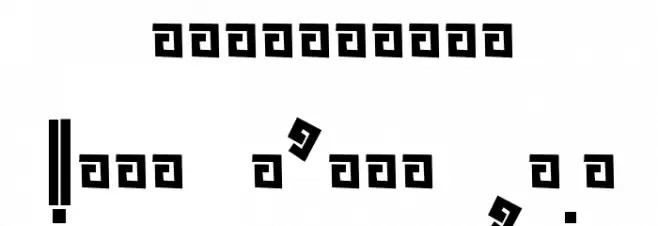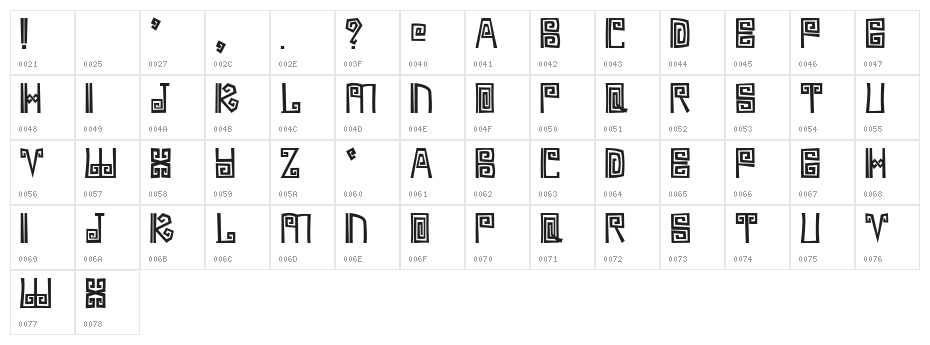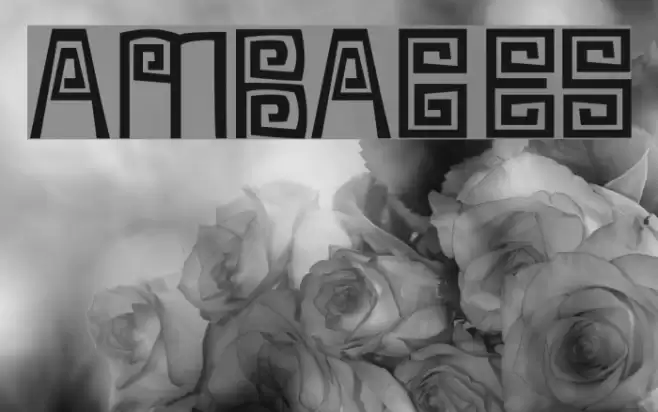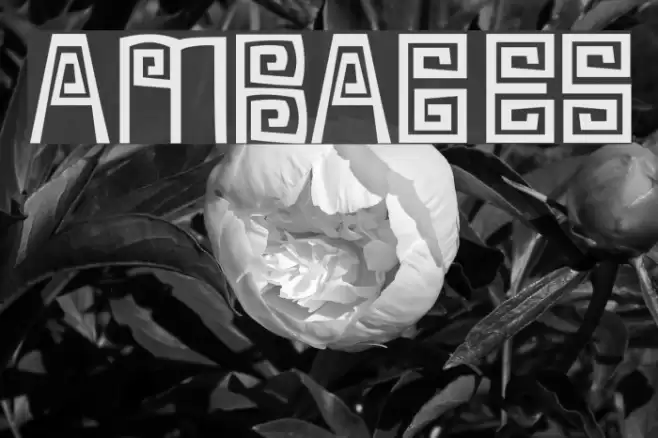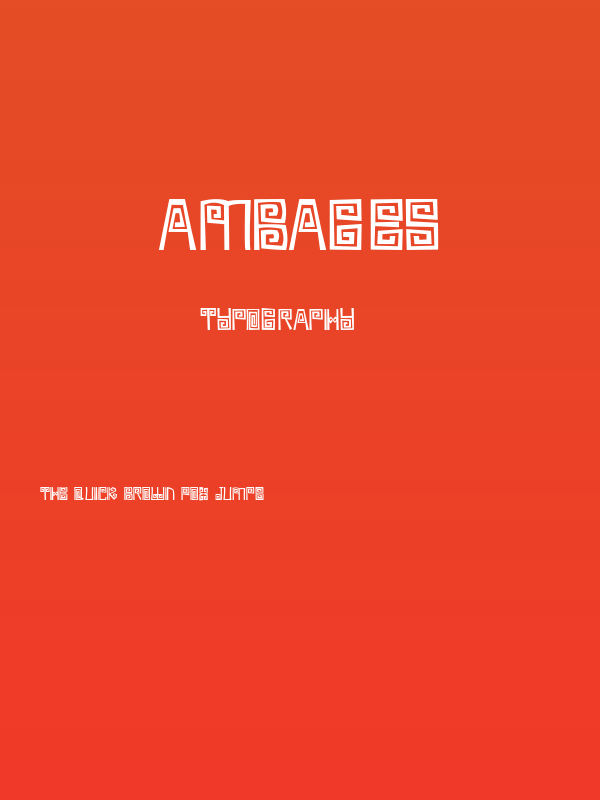
Ambages Font
Ambages Description
This font features a highly decorative and geometric style, characterized by intricate patterns and maze-like designs within each character. The uppercase letters are bold and striking, with a unique blend of angular and curved lines that create a sense of movement and complexity. The lowercase letters maintain the same intricate design, ensuring consistency throughout the typeface. Numbers and special characters are equally ornate, making them stand out in any design. This font's elaborate style makes it ideal for projects that require a bold and artistic touch.
| Use Case | Headlines, Logos, Artistic projects |
| Proposed Projects | Ideal for artistic posters, album covers, unique branding, and creative invitations. |